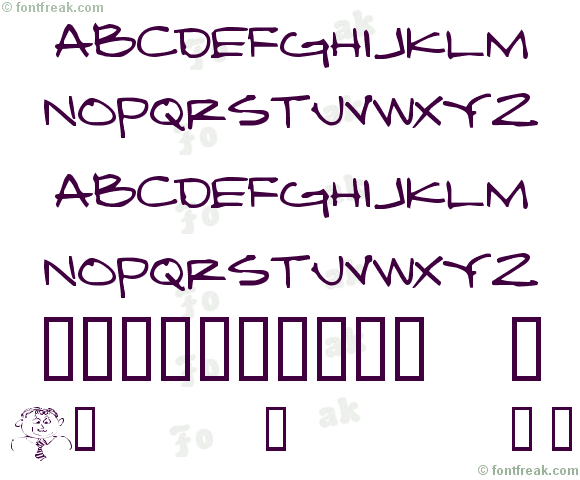
Damned Architect
About Damned Architect
The Damned Architect font, created by Phillip Cavette in 1997, is a unique handwritten typeface that exudes a personal touch reminiscent of casual notes and sketches. This font stands out as a decorative handwritten style, characterized by its playful strokes and irregularities that mimic authentic handwriting. The stroke weight varies throughout the letters, adding a dynamic quality to the overall appearance, while the moderate contrast between the thick and thin lines enhances readability. The whimsical spacing between characters contributes to its informal charm, making it an inviting option for various design projects.
This font is particularly well-suited for creative applications such as wedding invitations, where its casual elegance can evoke a sense of warmth and intimacy. It also shines in the context of movie posters, where its unique character can convey a sense of creativity and originality, appealing to a younger audience. Restaurant menus benefit from the Damned Architect font as it adds a touch of personality, enticing diners with its friendly vibe. Additionally, small business owners can leverage this font for branding purposes, as it helps create a memorable identity that resonates with customers.
The target audience for the Damned Architect font includes graphic designers seeking to add a personal flair to their projects, content creators looking to enhance their visual storytelling, and small business owners aiming to create an approachable brand image. With its freeware license, the Damned Architect font is accessible for anyone looking to infuse their work with a unique and artistic touch.
What sets the Damned Architect font apart is its ability to blend creativity with legibility. This font captures the essence of human expression, making it a delightful addition to any design project. For those interested, a Damned Architect font free download is readily available, allowing users to explore its potential firsthand.